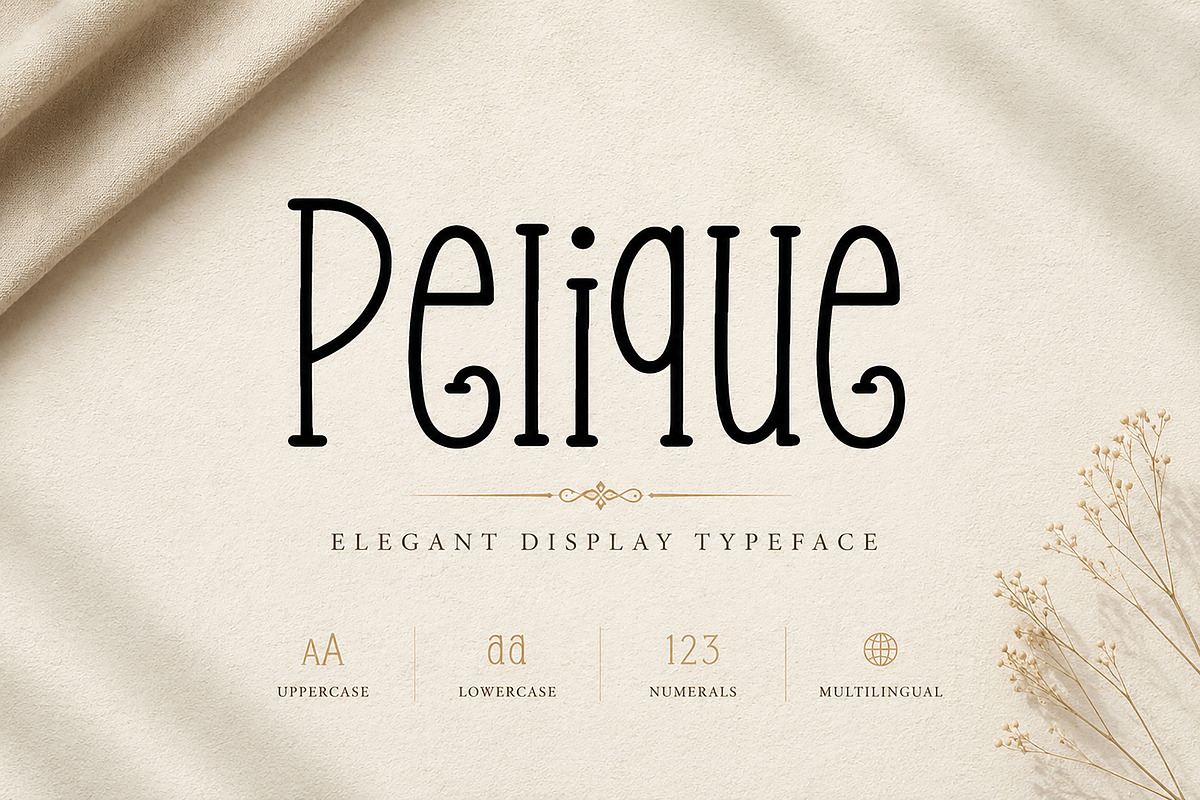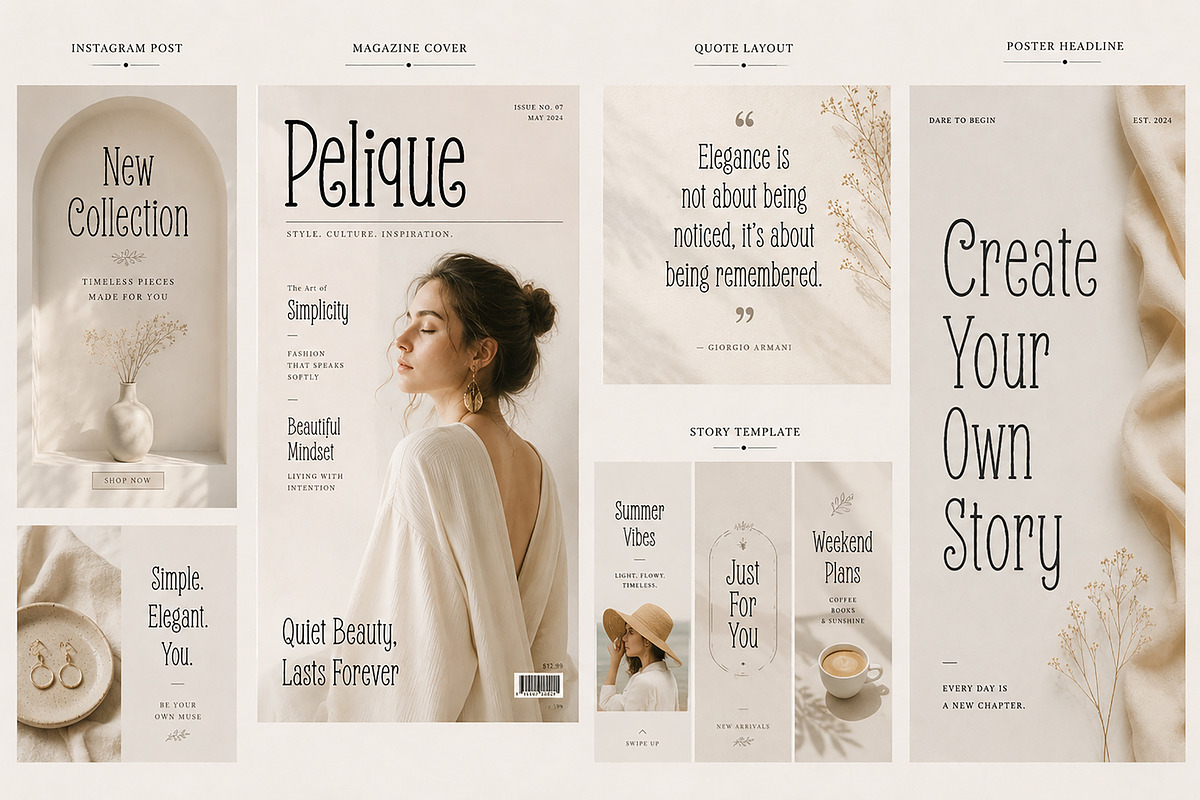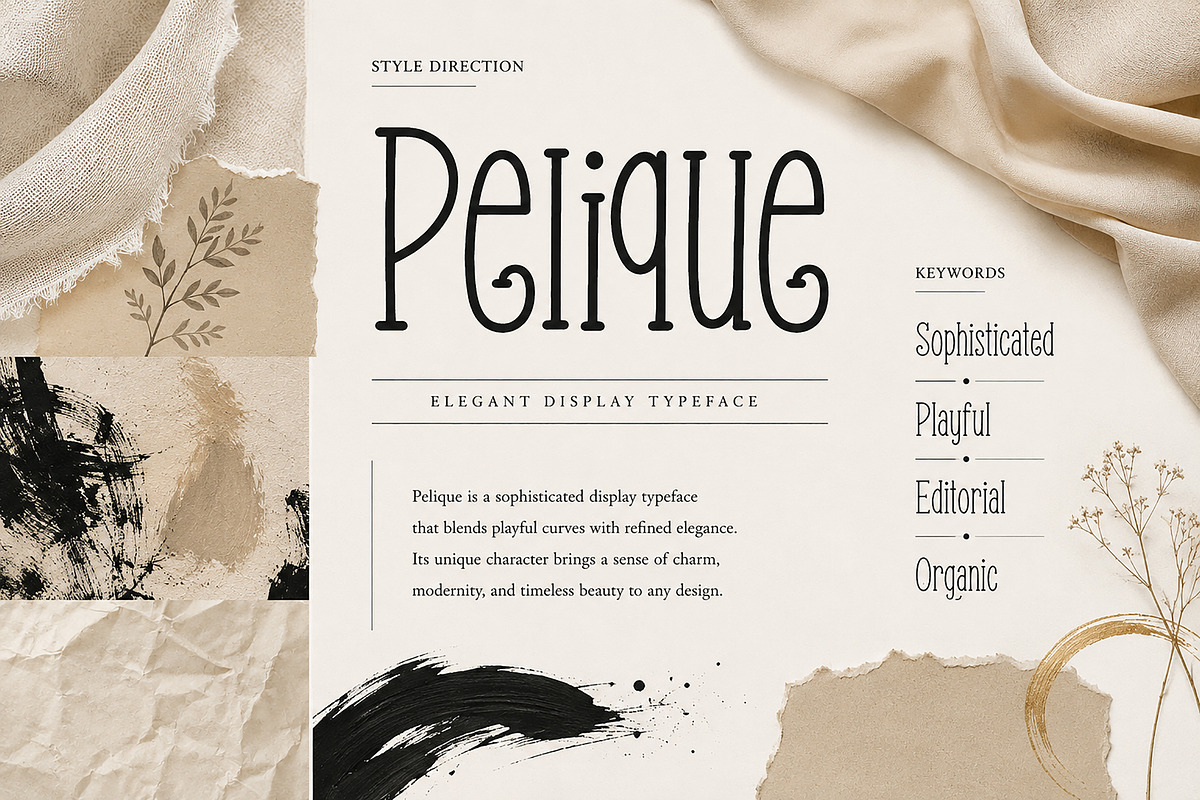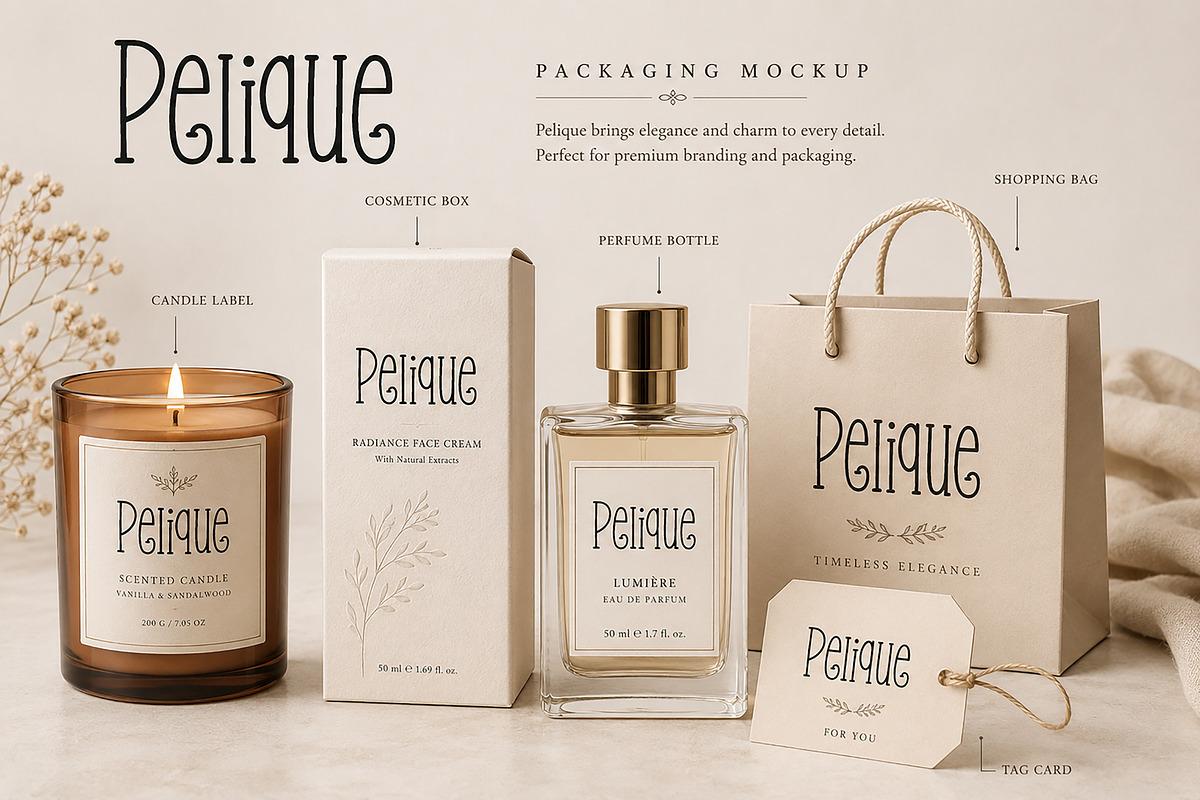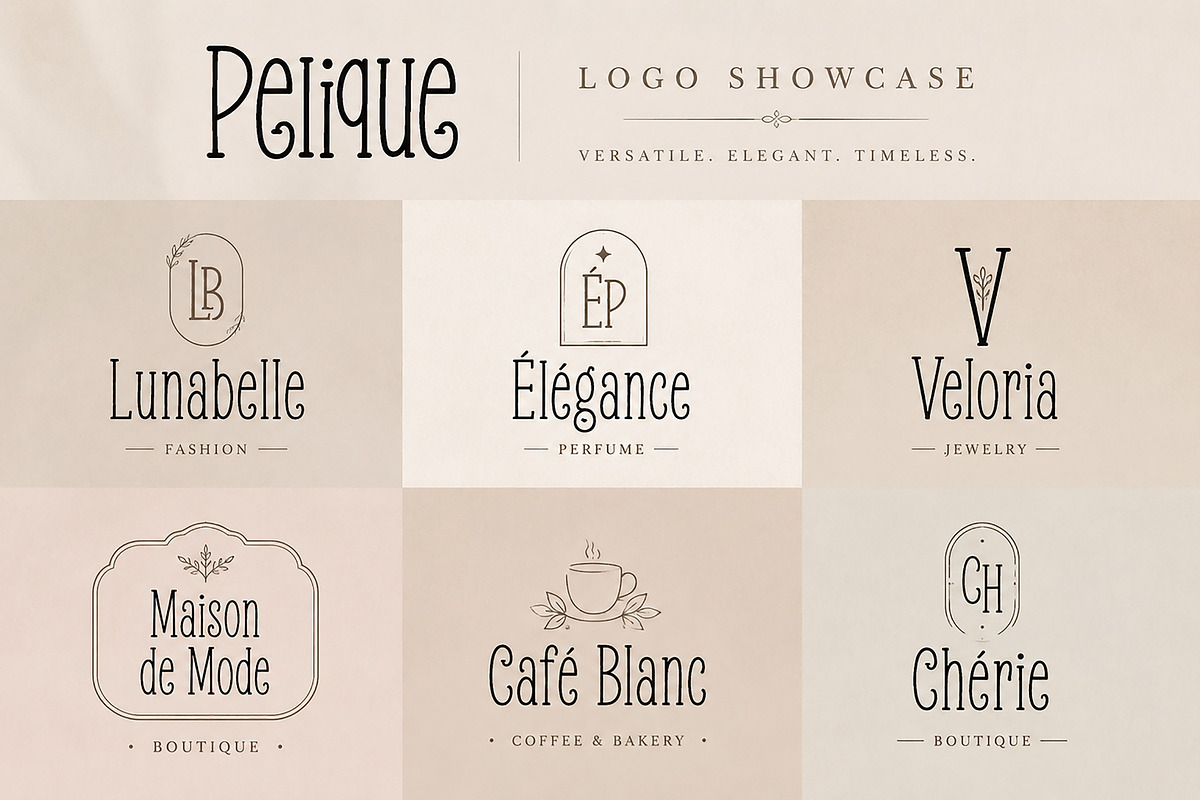
Pelique
Pelique is a sophisticated display font with playful curves and elegant proportions, perfect for luxury branding, editorial design, packaging, and modern visual storytelling.
Pelique is an elegant display typeface crafted to bring sophistication, charm, and personality into your creative projects. With its tall, graceful letterforms and playful organic curves, Pelique blends modern refinement with timeless editorial aesthetics.
Designed for premium branding and stylish visual storytelling, this font is perfect for logos, packaging, magazine headlines, social media templates, fashion branding, perfume labels, boutique identities, and luxury product presentations.
Its unique character makes every design feel artistic, expressive, and memorable.
Whether you're creating a chic fashion brand, a feminine boutique identity, or an editorial-style layout, Pelique delivers a distinctive and polished look with effortless elegance.
Luxury Branding
Fashion Logos
Beauty Packaging
Perfume Labels
Boutique Identity
Editorial Headlines
Magazine Covers
Social Media Design
Wedding Invitations
Quote Designs
Posters & Flyers
Pelique is created to help designers build modern, elegant, and premium-looking brands with a unique artistic touch.